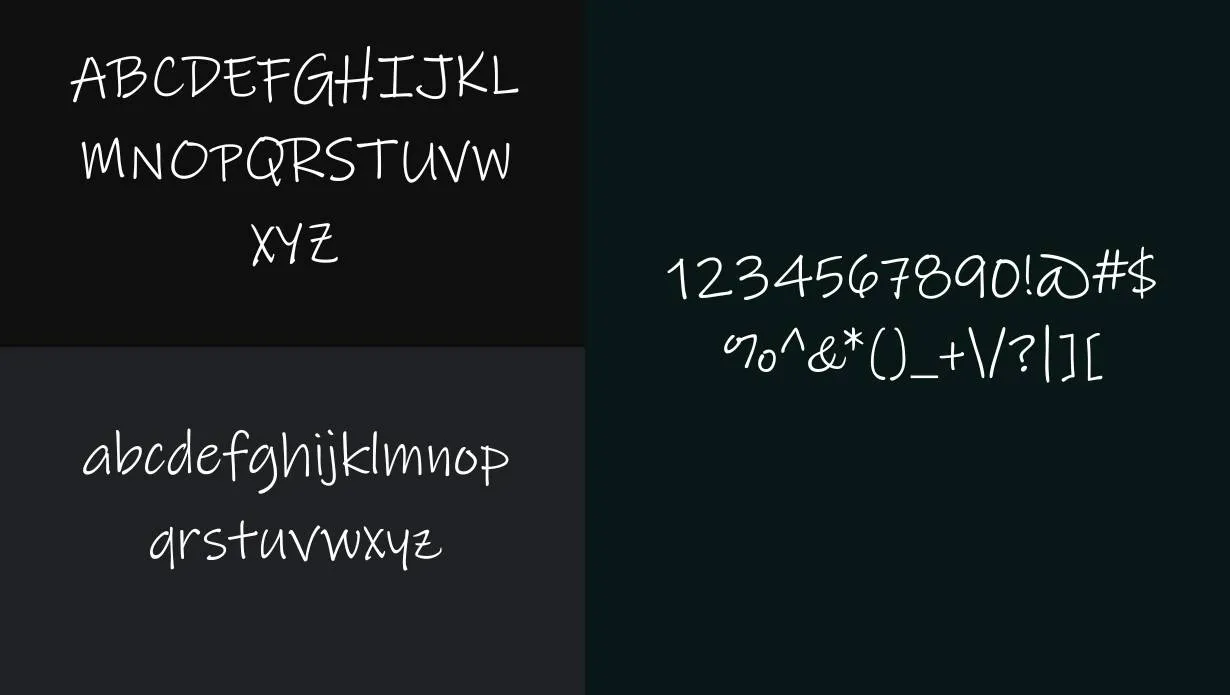
Ink Free Font is reminiscent of a friendly doodle for your words. It brings a casual and laid-back vibe as if your letters opted for a playful scribble.
When you use Ink Free Font, your writing becomes carefree and fun. It’s like the joy of drawing in the margins of a notebook, making your words lighthearted and spontaneous. Choose Ink Free Font when you want your writing to be as playful as a doodle on a lazy afternoon.
| Name | Ink Free Font |
| Designer | Mr. Steve Matteson |